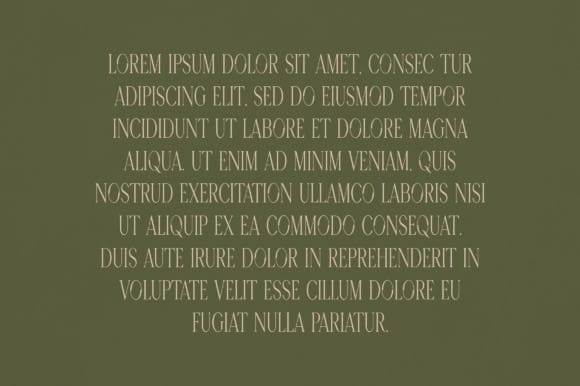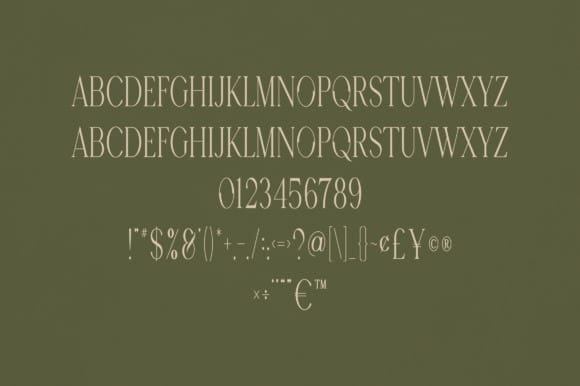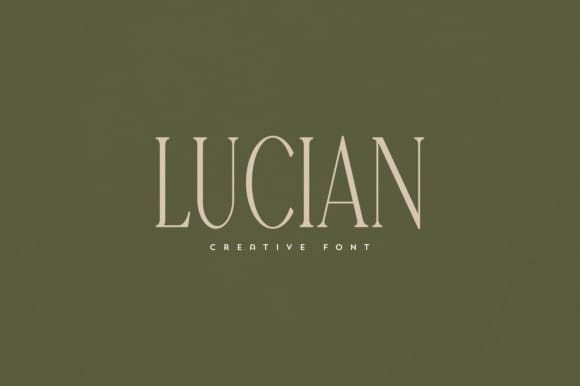
Lucian Font
Lucian Font is an elegant and versatile font that will make your typography truly unique! It will enchant every logo, branding, headline, or plain text!